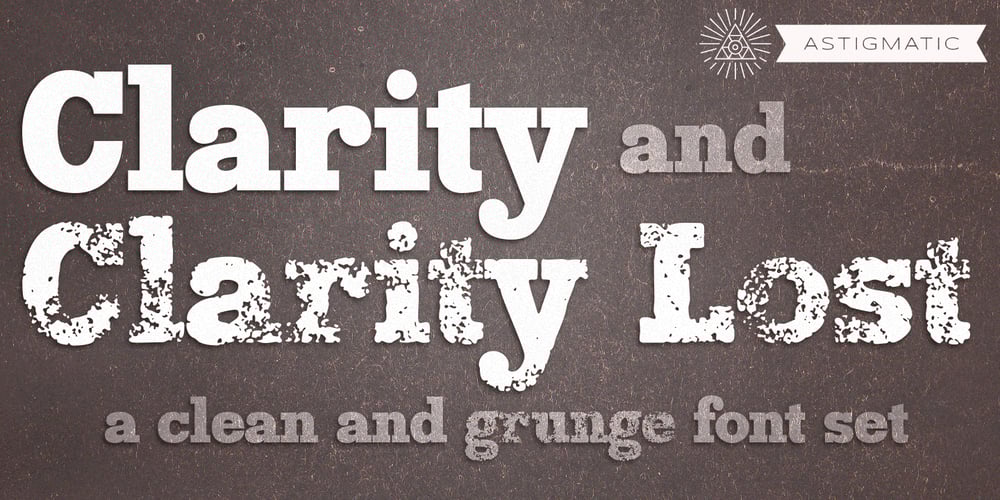
Clarity AOE
Clarity AOE font
Clarity AOE Font Family was designed by Brian J. Bonislawsky and published by Astigmatic. Clarity AOE contains 4 styles and family package options. Clarity and Clarity Lost play on readability, from extremely legible to bordering on hard to read and worn away, offering the designer a range of use.